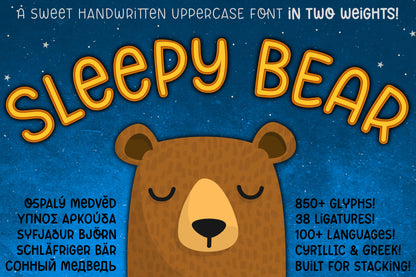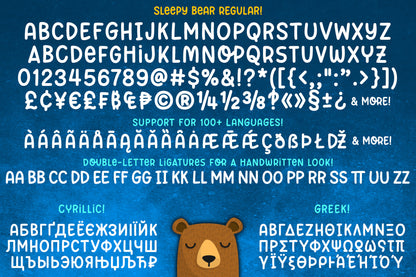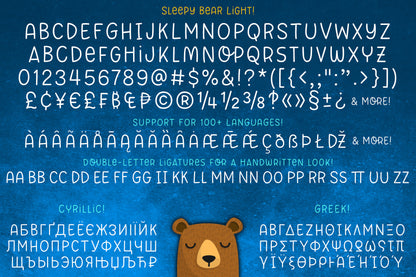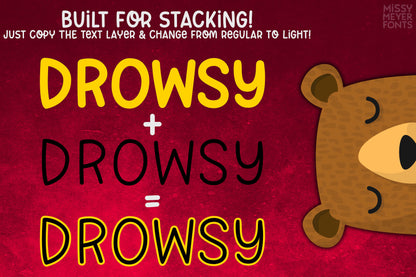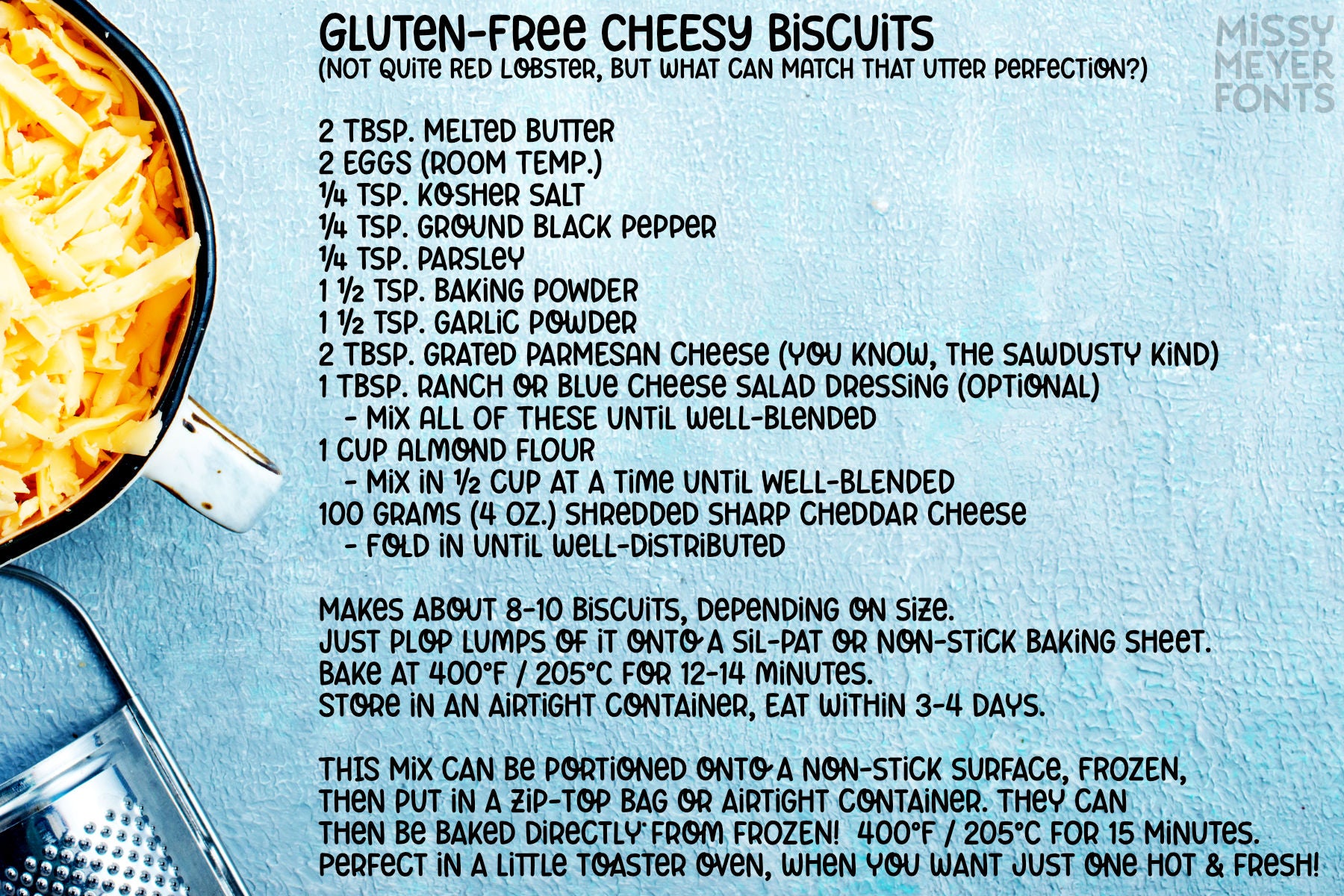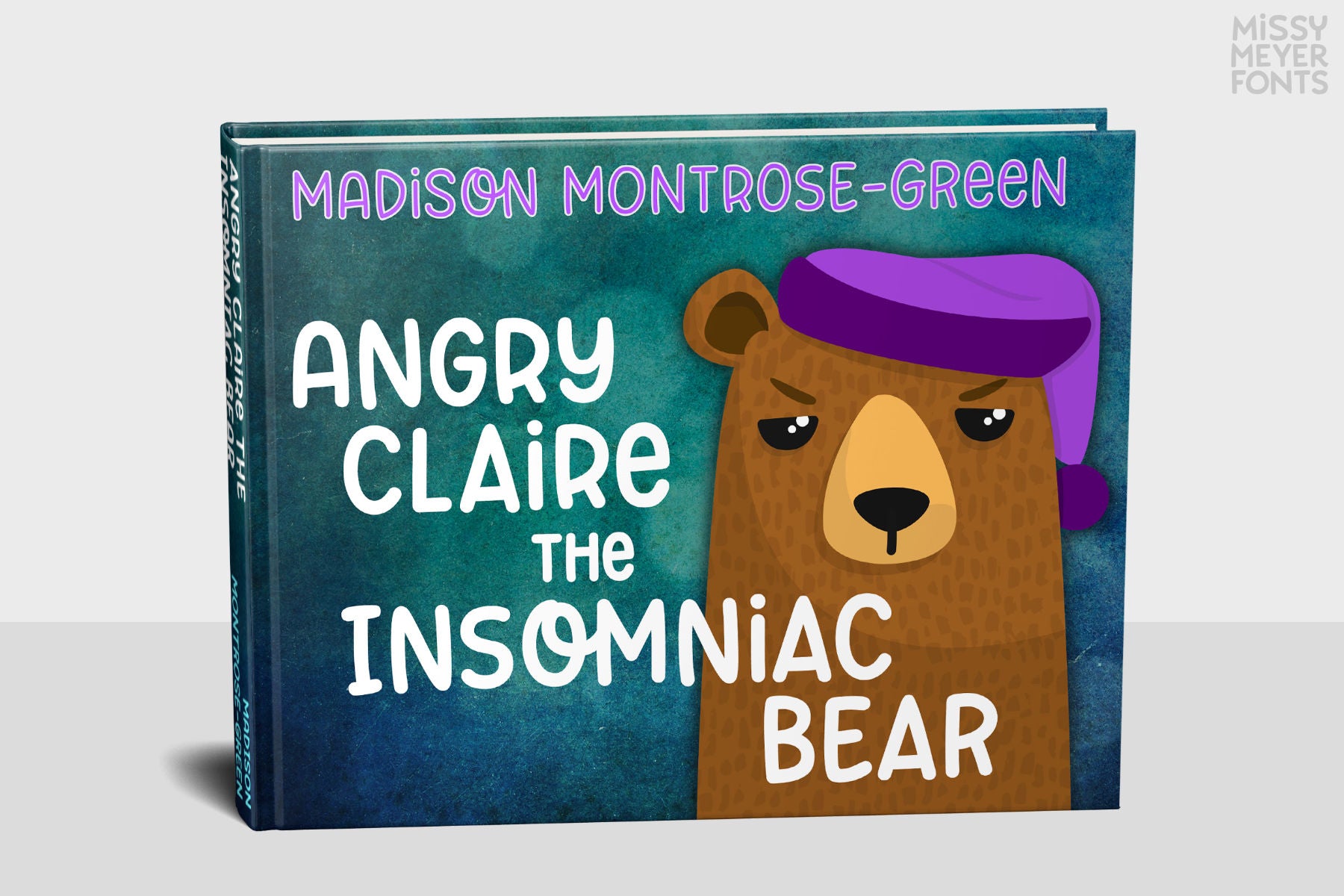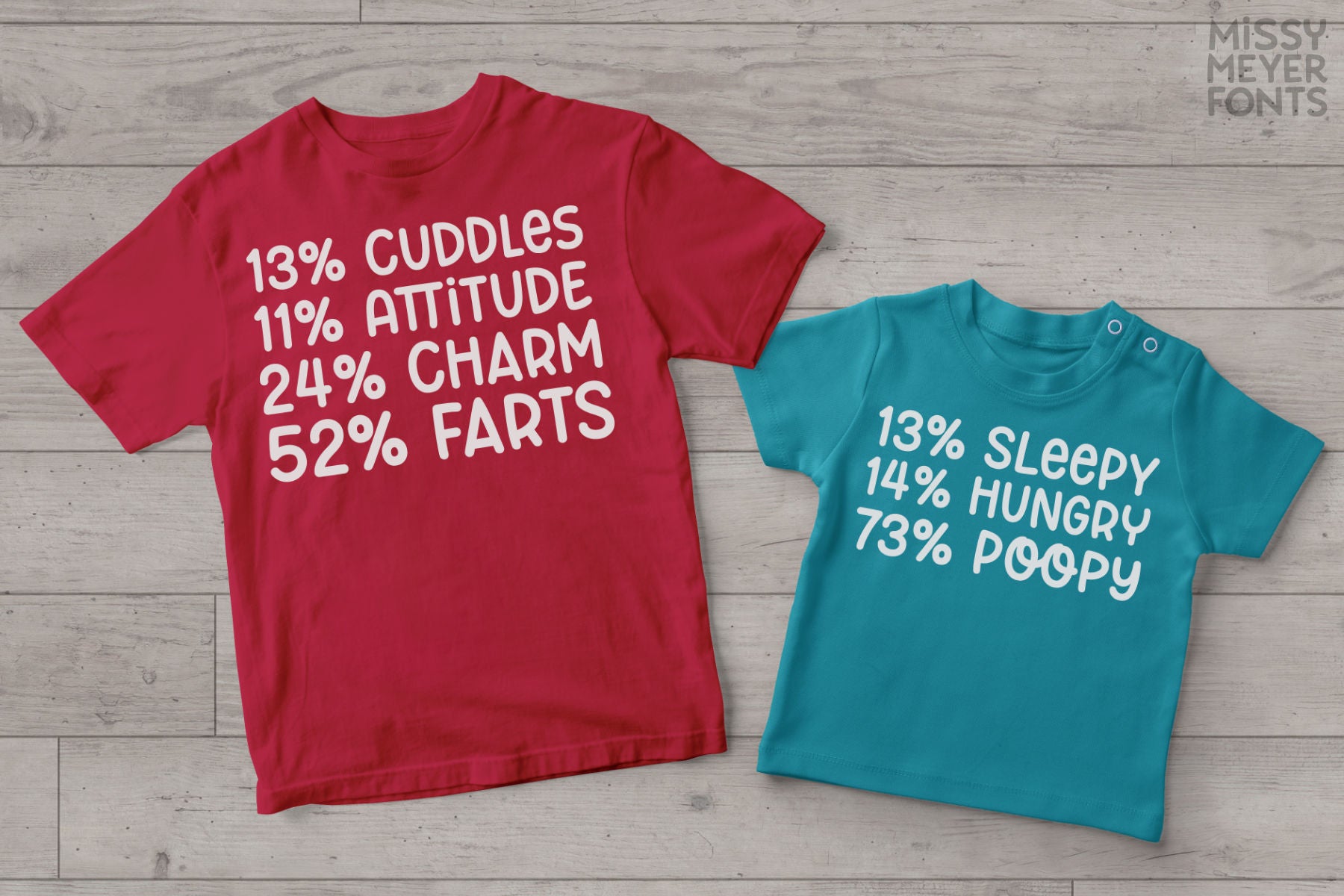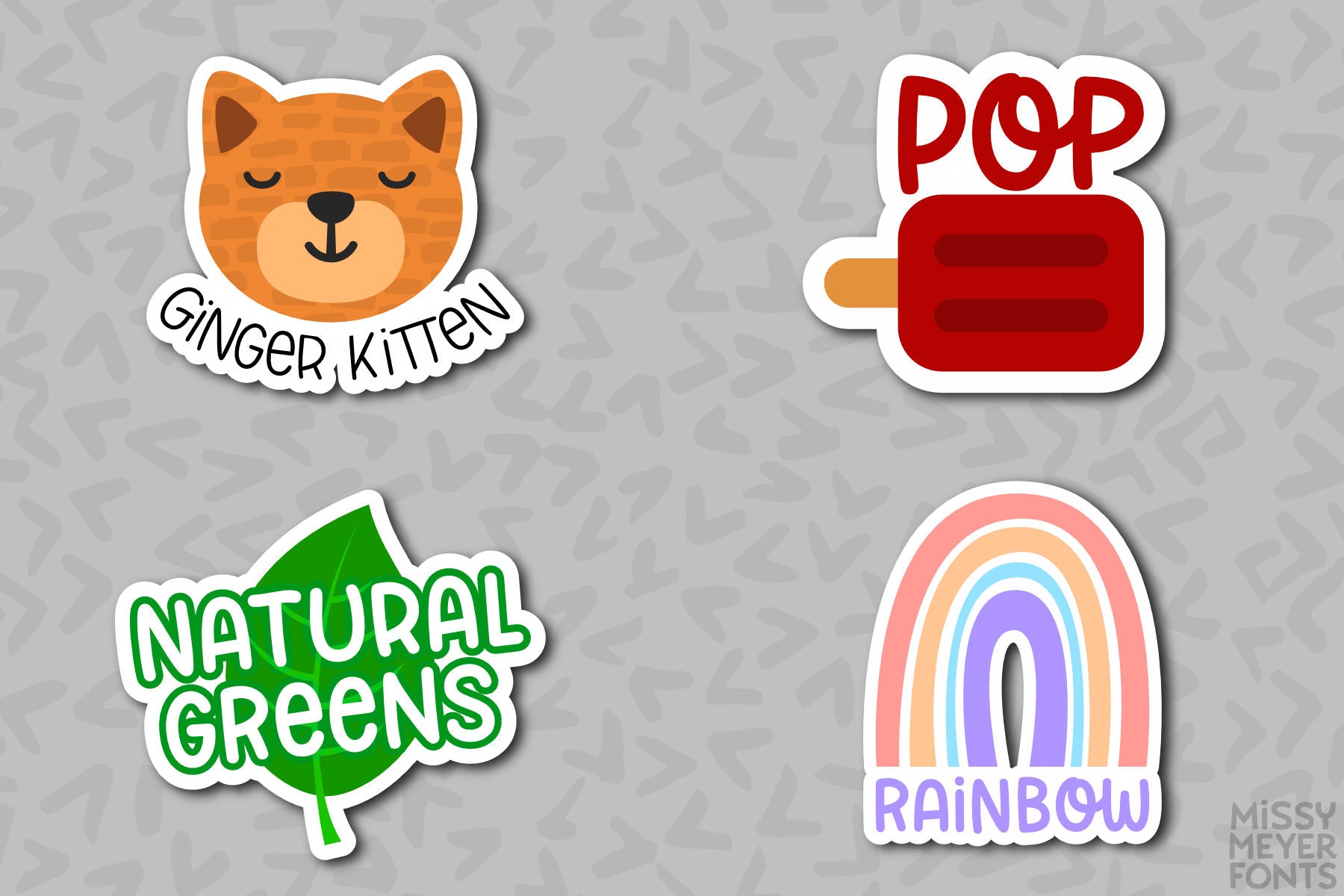
I've been learning to read Cyrillic and Greek letters lately, mainly because I've been playing the game GeoGuessr. (If you haven't played it, I highly recommend! It plops you down somewhere in the world in Google Street View, and you have to figure out where you are.) Cyrillic shows up in so many more places than Russia! You can see it in Bulgaria, Mongolia, Serbia, Montenegro, Kyrgyzstan, and more.
Because of that, I made sure to include a fun double-uppercase version the Greek and Cyrillic alphabet sets in Sleepy Bear. They're styled the same way as the Latin characters: all uppercase height, with some lowercase-styled letters thrown in at that same height for a fun look for all ages. Plus both weights of Sleepy Bear contain over 360 extended Latin characters to support over 110 languages.
All characters are extensively cleaned up, with smooth curves and rounded ends. Sleepy Bear is great for all print projects, and also cuts out of all materials like a dream. It's a cute and quirky monoline font family that's great for all of your family's designs.